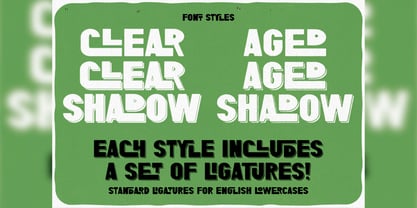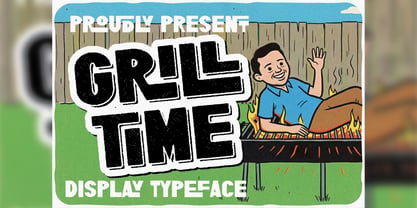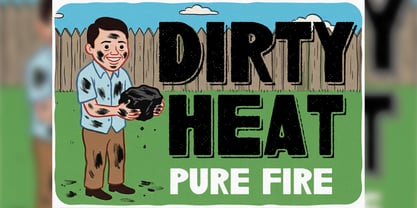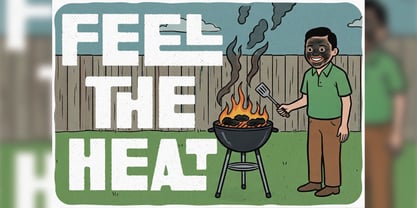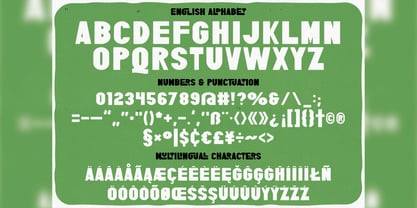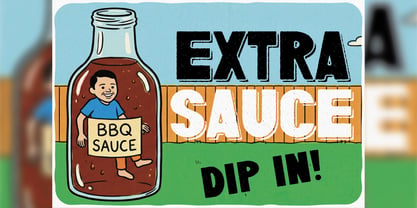
Grill Time
by Vozzy
The Grill Time Font Family was designed by Oleg Voznyy and published by Vozzy. Grill Time contains 4 styles and family package options. More about this family
I am pleased to present a new font called “Grill Time”. It is a unique font for headlines, accent inscriptions, and for attracting attention! It contains additional characters, punctuation marks, multilingual characters, and a large number of standard ligatures (make sure your software supports this open type feature). This font will look great on your beautiful designs!
Designers: Oleg Voznyy
Foundry: Vozzy